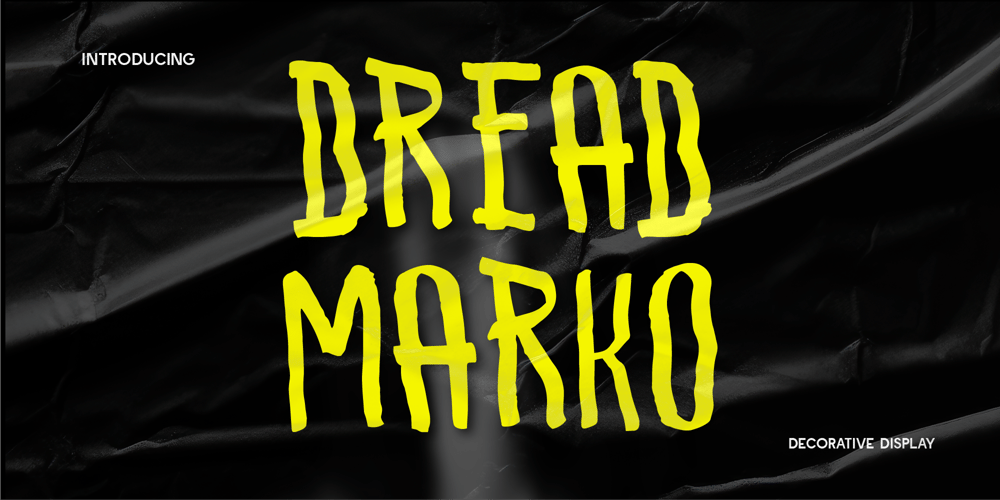
Dreadmarko
Dreadmarko font
Dreadmarko Font Family was designed by Gilang Mei Nugraha, Frederik Aristaputra and published by Creatifont Studio. Dreadmarko contains 1 styles and family package options. Dreadmarko is a unique handwritten font with a raw, grunge-inspired aesthetic that feels both eerie and intriguing. Its irregular, slightly distressed letterforms give it a naturally spooky vibe, perfect for adding a sense of mystery and suspense to your designs. Whether you’re working on horror movie posters, haunted house invitations, or dark-themed branding, Dreadmarko adds an element of unease without overwhelming the design. Its subtle distressing and unpredictable glyph shapes make it stand out, while still maintaining a balance that feels artistic and eye-catching.A SUMMARY OF WHAT’S INCLUDED: Standard Character A-Z, a-z, 0-9, Punctuation & symbols Regular Style Multilingual Support Works on PC & Mac Simple installation Accessible in Adobe Creative Suite (Ai, Ps, Id, etc.) even work on Microsoft Word. PUA Encoded Characters – Fully accessible without additional design software. 🌟If you come across any issues or notice anything we might have overlooked while using this product, please feel free to reach out to us. We greatly value your feedback as it helps us enhance and refine our products. Thank you!